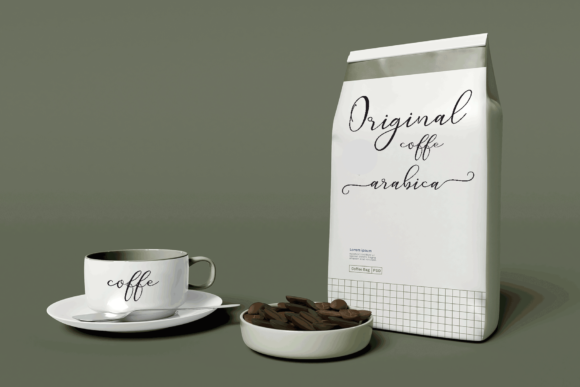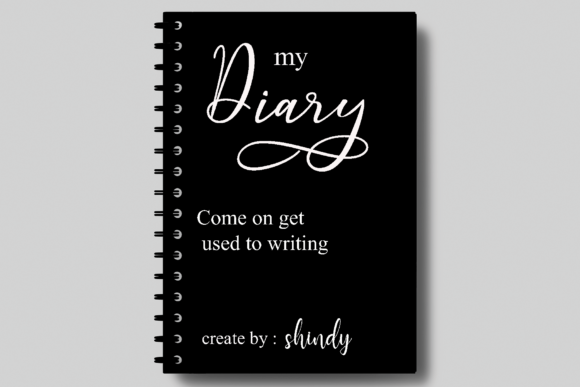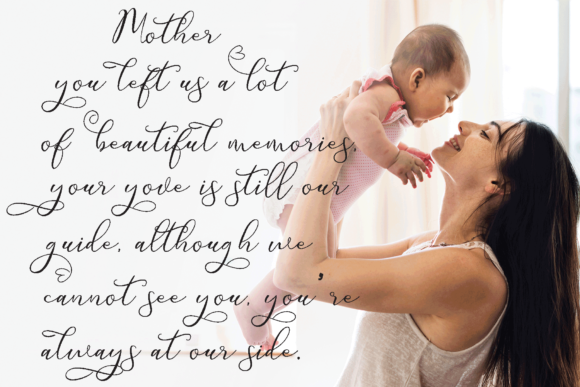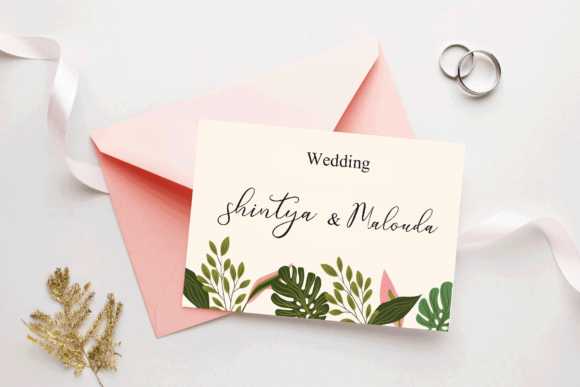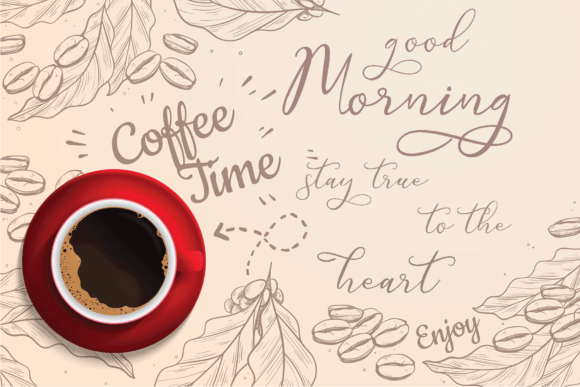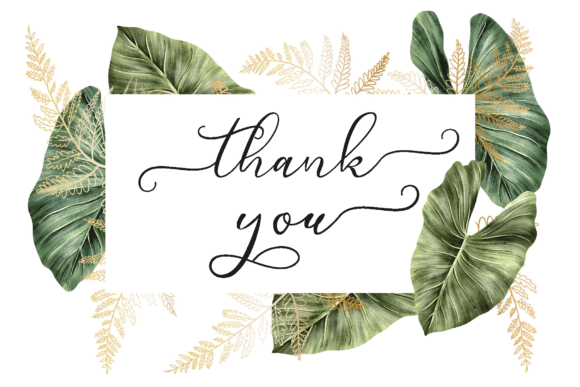
Discover the Elegance of Brilliant Font: A Delicate Handwritten Typeface
Are you a designer or crafter looking for a font that exudes elegance and sophistication? Look no further than Brilliant Font, a delicate and flowing handwritten typeface that is sure to elevate your designs. In this article, we’ll take a closer look at what makes Brilliant Font so special and why it’s a must-have for any creative project.
The Characteristics of Brilliant Font
Brilliant Font is a beautifully crafted handwritten font that boasts a range of characteristics that make it perfect for a wide range of designs. Its delicate and elegant lines, combined with its flowing curves, give it a sense of sophistication and refinement. The font’s characters are well-balanced and proportioned, making it easy to read and visually appealing.
One of the standout features of Brilliant Font is its versatility. Its elegant and refined design makes it perfect for use in a variety of projects, from wedding invitations and stationery to branding and packaging. Whether you’re looking to create a luxurious and high-end feel or a more playful and whimsical design, Brilliant Font is sure to deliver.
PUA Encoding: Unlocking the Full Potential of Brilliant Font
Brilliant Font is PUA (Private Use Area) encoded, which means that it has a wide range of glyphs and swashes that can be accessed with ease. This encoding allows designers to tap into the font’s full creative potential, making it possible to create unique and eye-catching designs that stand out from the crowd.
With PUA encoding, you can access a wide range of alternative characters, ligatures, and swashes that can be used to add an extra layer of creativity and sophistication to your designs. Whether you’re looking to add a touch of elegance or a dash of whimsy, Brilliant Font’s PUA encoding makes it easy to do so.
Why Designers and Crafters Love Brilliant Font
So why do designers and crafters love Brilliant Font? For starters, its elegant and refined design makes it perfect for creating high-end designs that exude luxury and sophistication. Additionally, its versatility and flexibility make it easy to use in a wide range of projects, from digital designs to print materials.
Tips for Using Brilliant Font in Your Designs
So how can you get the most out of Brilliant Font in your designs? Here are a few tips to get you started:
- Use Brilliant Font as a headline font to add a touch of elegance and sophistication to your designs.
- Pair Brilliant Font with a bold and modern font to create a striking contrast.
- Experiment with Brilliant Font’s glyphs and swashes to add an extra layer of creativity to your designs.
- Use Brilliant Font in digital designs, such as social media graphics and website headers, to add a touch of luxury and sophistication.
In conclusion, Brilliant Font is a delicate and elegant handwritten font that is perfect for designers and crafters looking to add a touch of sophistication and luxury to their designs. Its versatility, flexibility, and ease of use make it a must-have for any creative project. Whether you’re looking to create a high-end design or a more playful and whimsical one, Brilliant Font is sure to deliver.